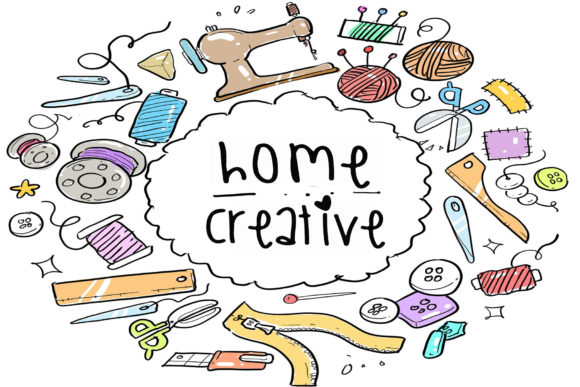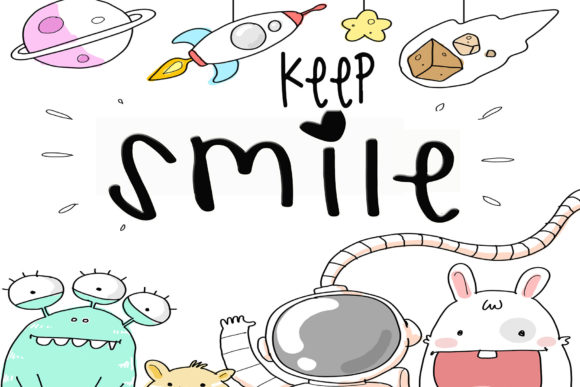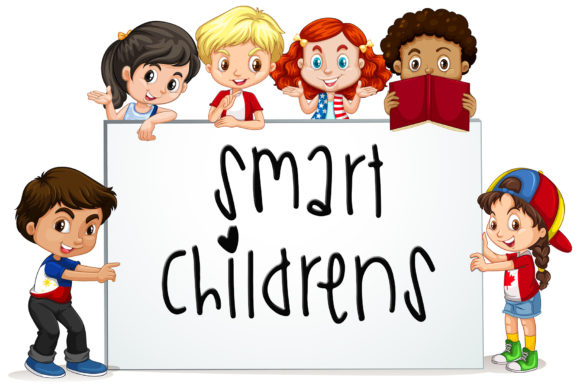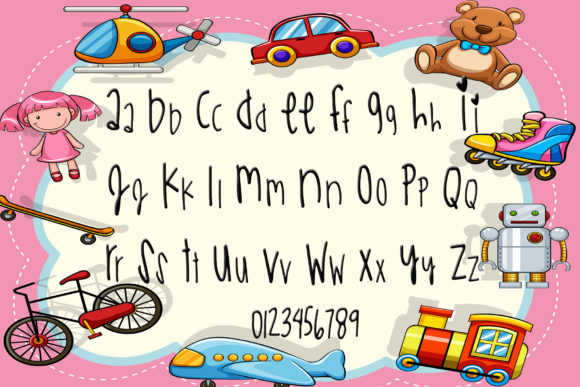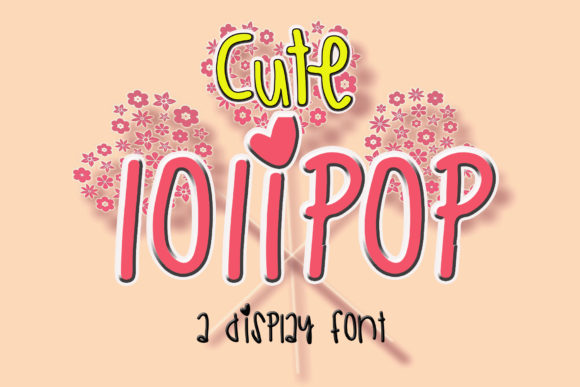
Cute Lolipop Font: Add a Personal Touch to Your Designs
Are you a designer or crafter looking for a unique and charming font to elevate your creations? Look no further than the Cute Lolipop font! This adorable handwritten font is perfect for adding a personal touch to your designs, whether you’re creating chalkboard quotes, teaching materials, or any other type of visual content.
What is Cute Lolipop Font?
Cute Lolipop is a cute and simple lettered handwritten font that is designed to mimic the look of authentic chalkboard writing. Its charming and whimsical style makes it perfect for a variety of design projects, from educational materials to social media graphics. With its clean and easy-to-read lines, Cute Lolipop is a versatile font that can be used in a range of contexts.
Key Features of Cute Lolipop Font
- Cute and Simple Design: Cute Lolipop features a delightful and uncomplicated design that is sure to capture the attention of your audience.
- Handwritten Style: The font’s handwritten style gives it a personal and realistic feel that is perfect for creating a connection with your audience.
- Chalkboard-Inspired: The font’s chalkboard-inspired look makes it ideal for creating quotes, posters, and other visual content that requires a classic and timeless feel.
- Easy to Read: Cute Lolipop’s clean lines and simple design make it easy to read, even at smaller font sizes.
Uses for Cute Lolipop Font
Cute Lolipop is a versatile font that can be used in a variety of design projects, including:
- Chalkboard Quotes: Add a personal touch to your chalkboard quotes with Cute Lolipop’s charming and authentic look.
- Teaching Materials: Use Cute Lolipop to create engaging and educational materials, such as worksheets, posters, and presentations.
- Social Media Graphics: Add a touch of whimsy to your social media graphics with Cute Lolipop’s cute and playful design.
- Stationery and Invitations: Use Cute Lolipop to create adorable stationery and invitations that are sure to delight your friends and family.
Why Choose Cute Lolipop Font?
With so many fonts to choose from, why should you choose Cute Lolipop? Here are just a few reasons:
- Unique and Eye-Catching: Cute Lolipop’s charming design is sure to capture the attention of your audience and set your designs apart from the crowd.
- Authentic Look: The font’s authentic chalkboard-inspired look adds a personal and realistic feel to your designs.
If you’re looking for a unique and charming font to elevate your designs, look no further than Cute Lolipop. With its cute and simple design, authentic chalkboard-inspired look, and easy-to-read lines, Cute Lolipop is the perfect choice for designers and crafters who want to add a personal touch to their creations. So why wait? Download Cute Lolipop today and start creating adorable designs that are sure to delight your audience!